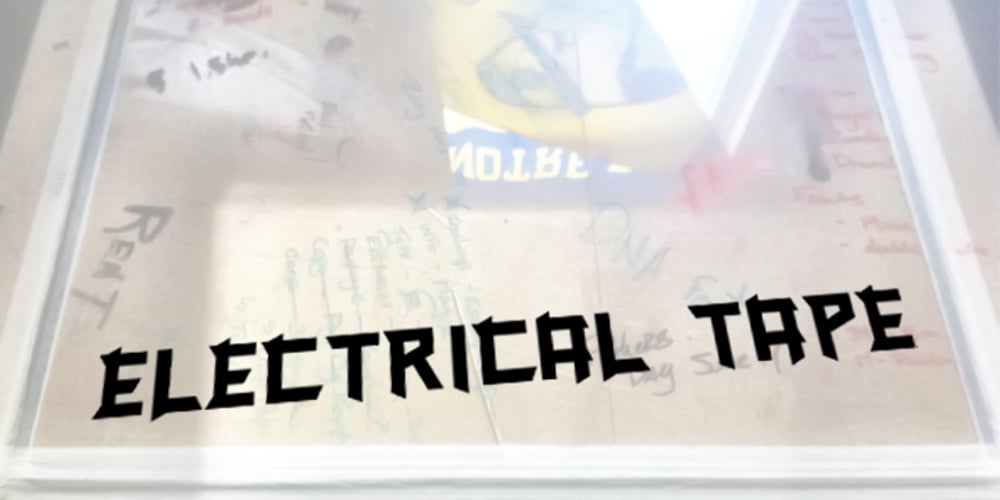
Electrical Tape Font Family was designed by Paul Binns and published by PBinns. Electrical Tape contains 1 styles and family package options. Electrical Tape is a mono-case display type. The idea came from generating custom letters using pieces of electrical tape. The over all design was then influenced by the graffiti subgenre as well as a hint of constructivist influence. Recommended applications of the font are for display purposes as well as digital media.